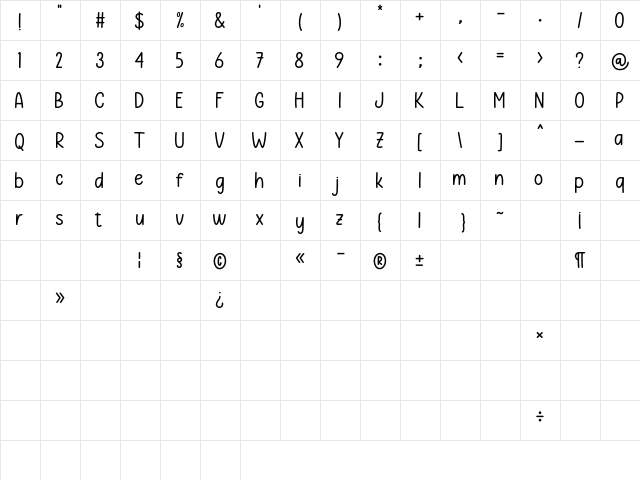
Roast Chicken Regular
Design Context for Roast Chicken Typeface
Roast Chicken is a composed and adaptable typeface that performs quietly and consistently across a wide range of design contexts.